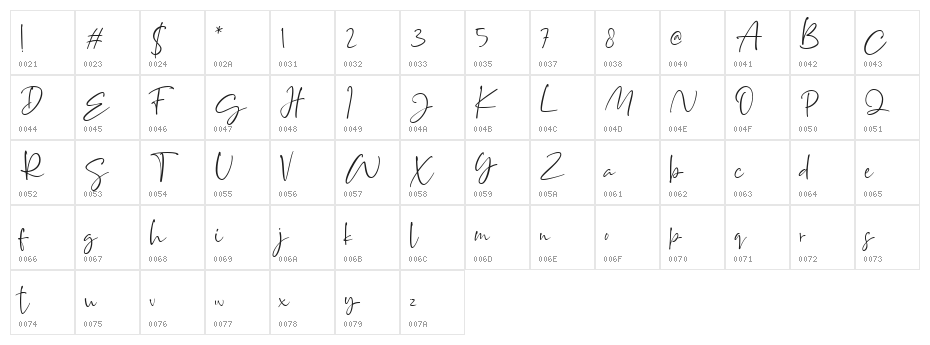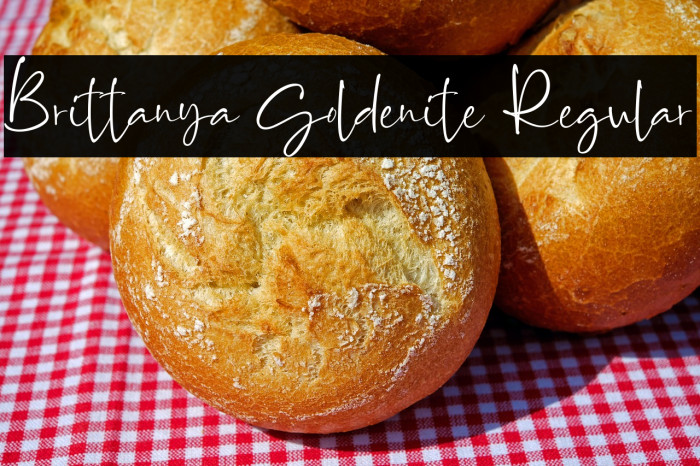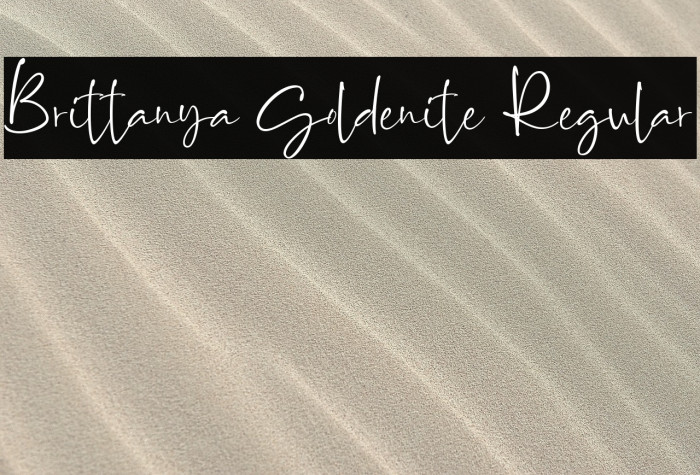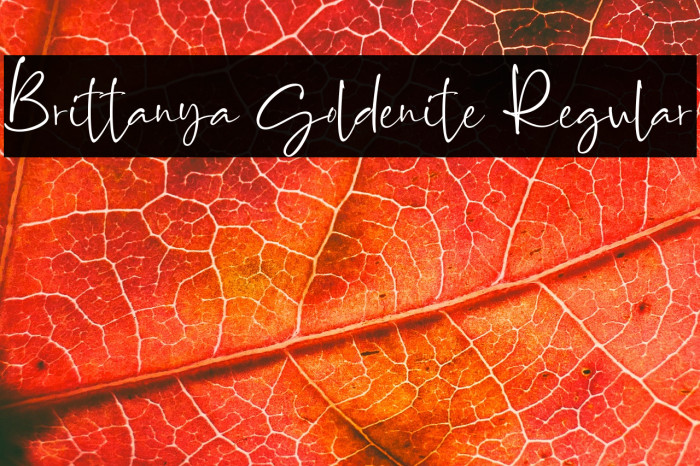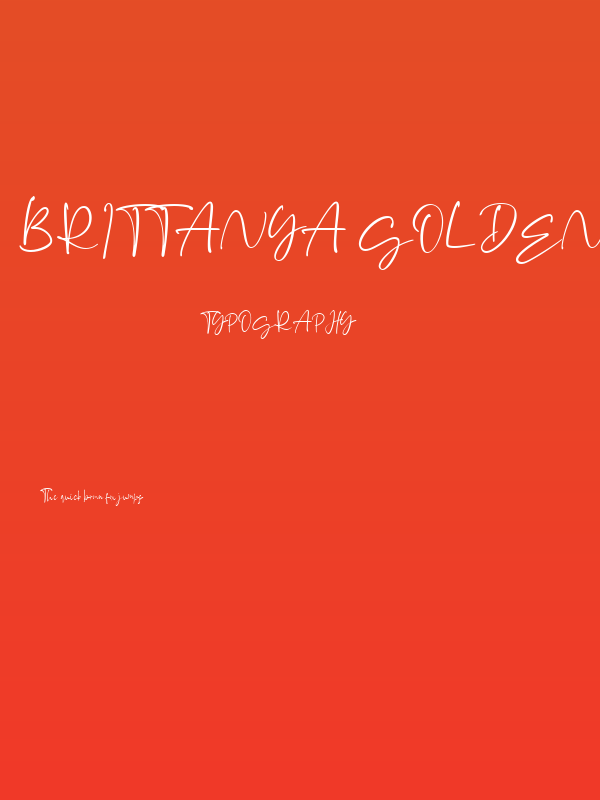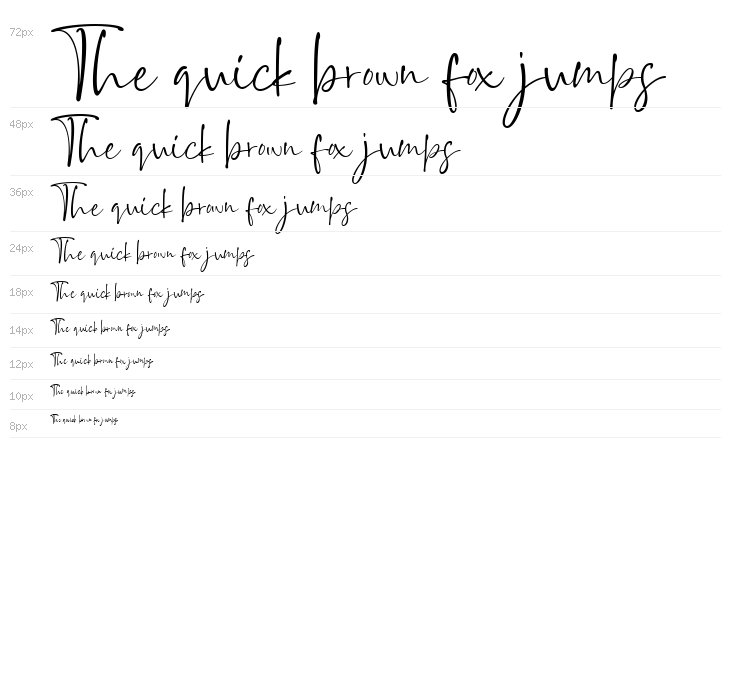
Brittanya Goldenite Regular Font
Brittanya Goldenite Regular Description
This font features a flowing, cursive style that exudes elegance and sophistication. The letters are connected with smooth, sweeping strokes, giving it a handwritten appearance. The uppercase letters are bold and prominent, while the lowercase letters maintain a consistent flow, enhancing readability. The numbers and special characters are crafted with the same fluidity, ensuring a cohesive look across all text elements. The overall design is modern yet timeless, making it versatile for various applications.
| Proposed Projects | Ideal for wedding invitations, greeting cards, branding, and elegant logo designs. |